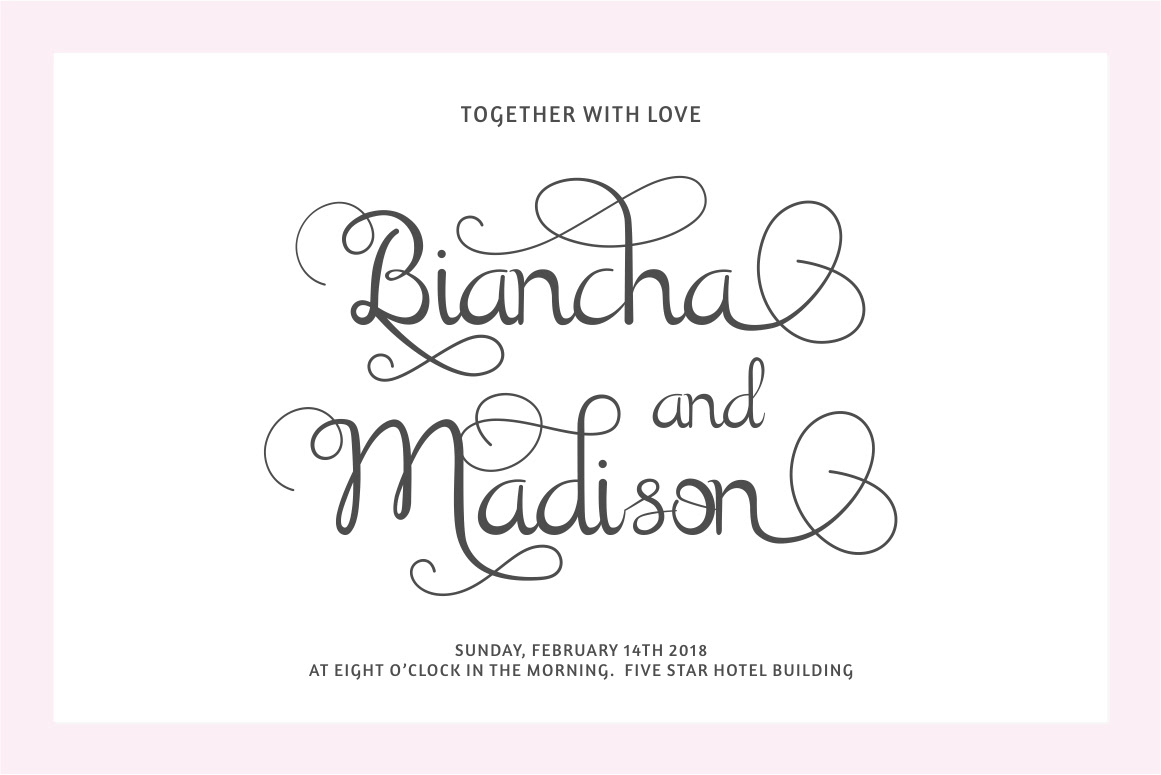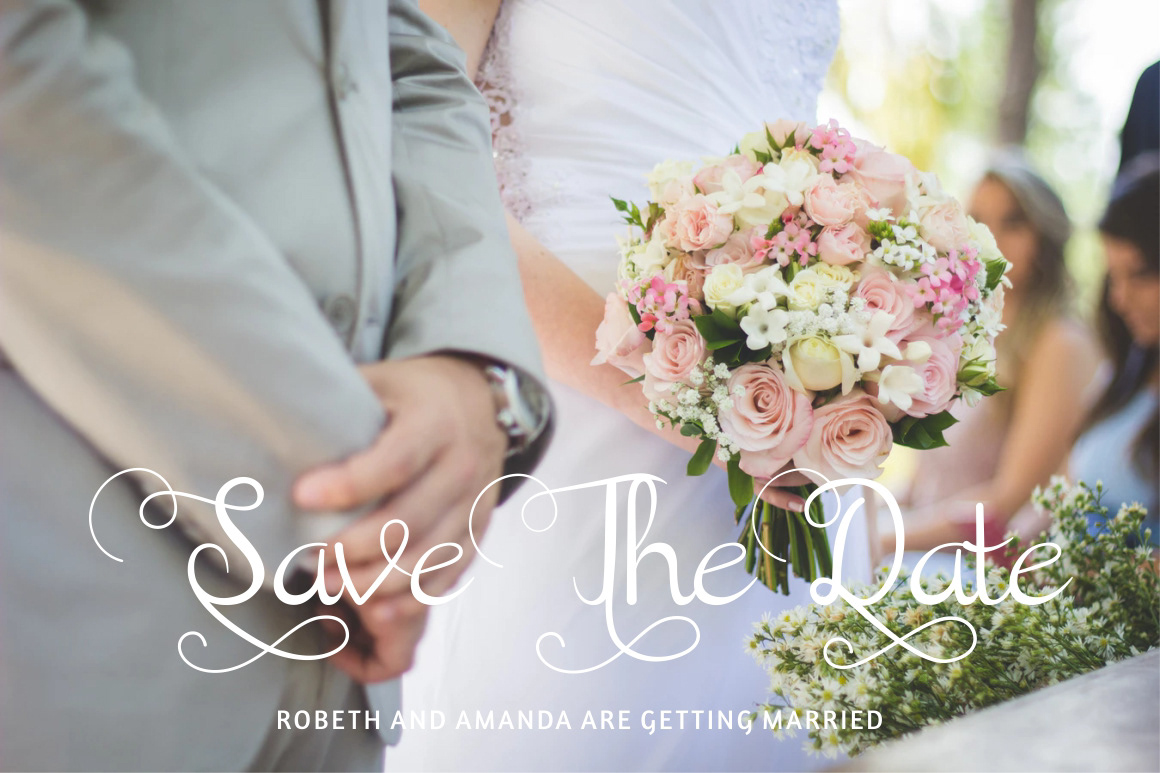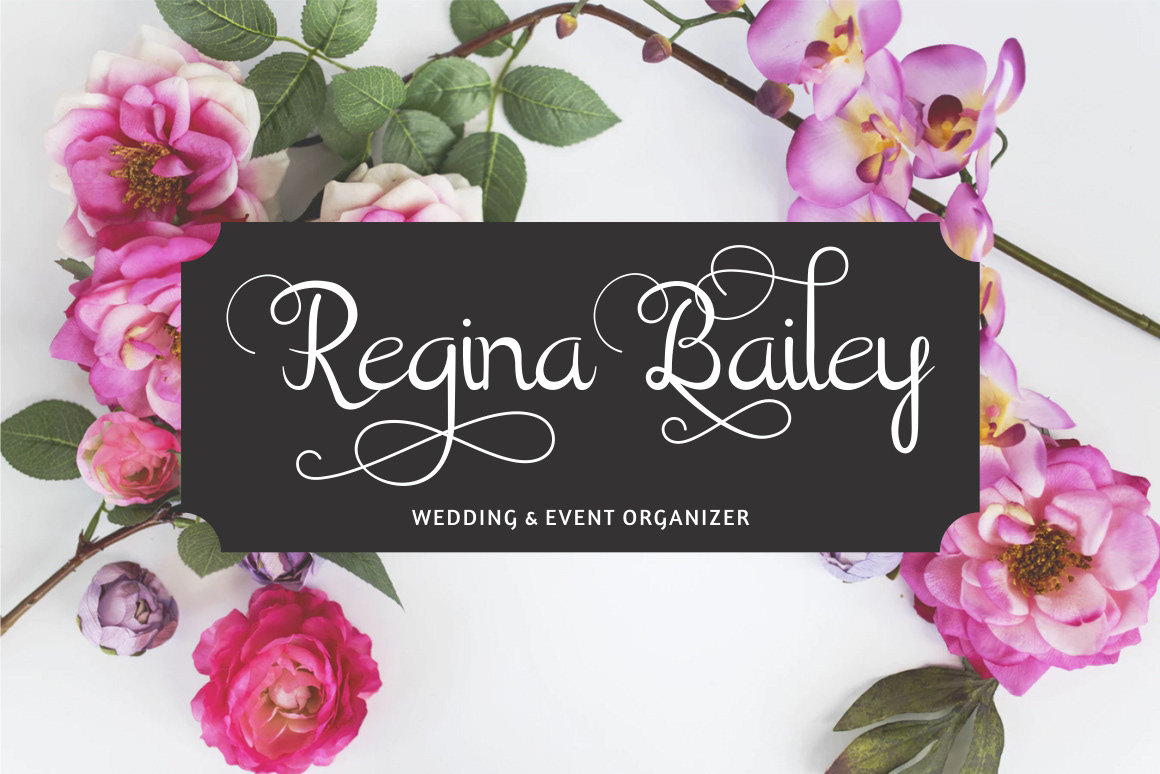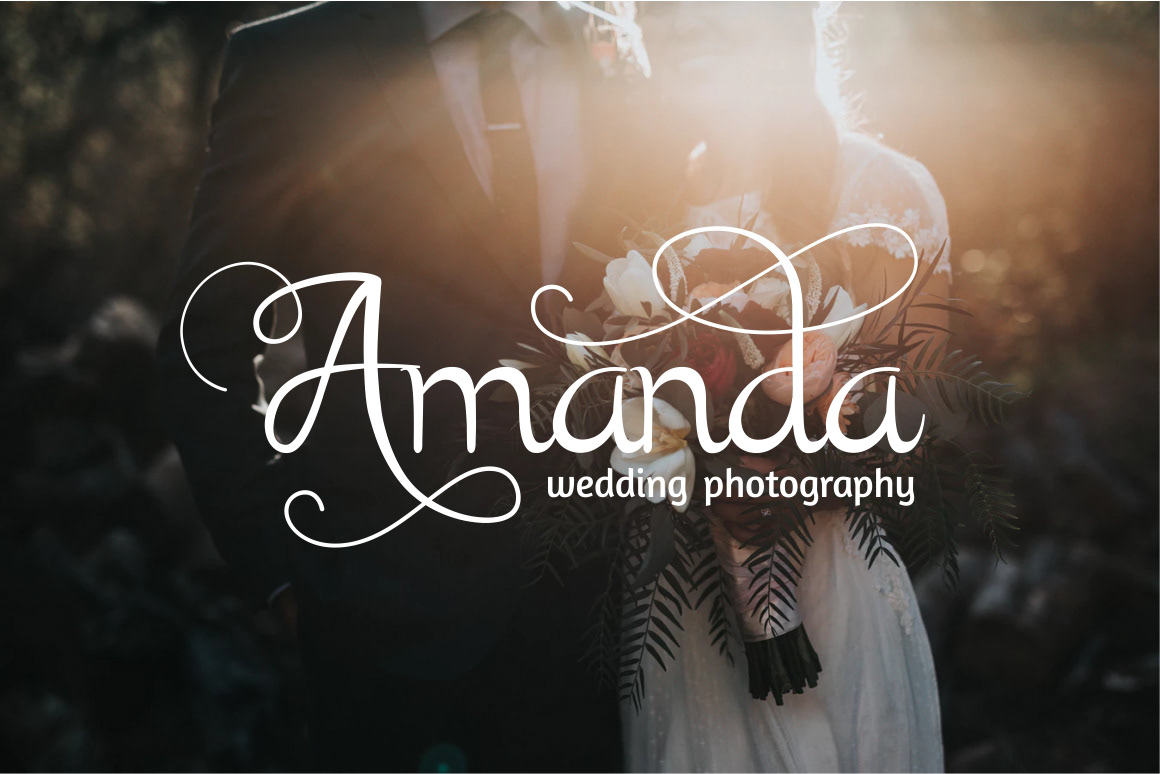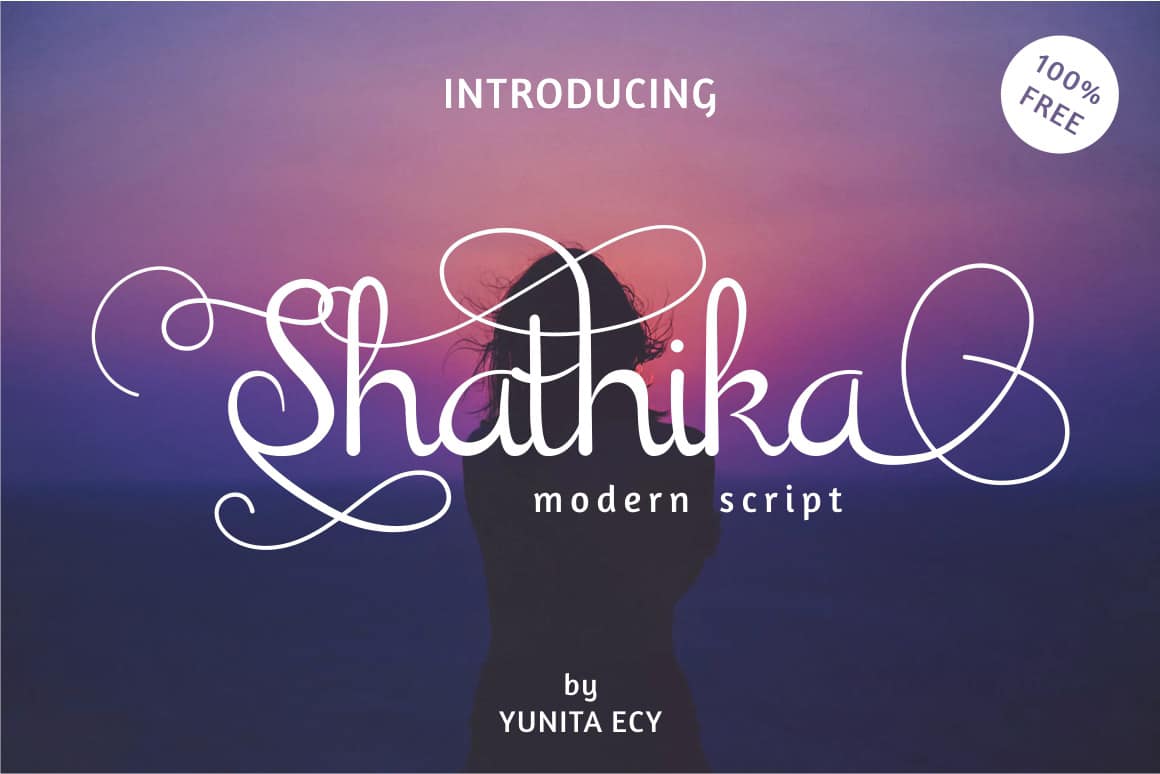
Shathika Script Font
Introducing you to a professional modern script font, a new fresh handmade calligraphy font, perfect for creating stylish & stylish letters! Introducing Shathika Font. Shathika designed and shared by Yunita Ecy. Very suitable for greeting cards, branding materials, business cards, quotes, posters, and more!This font are perfect for wedding postcard. Or you can create perfect and unique design of your logo, blog, stationery, marketing, magazines and more 🙂